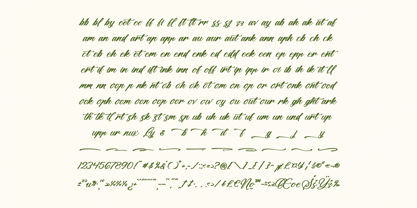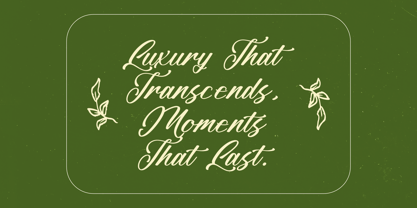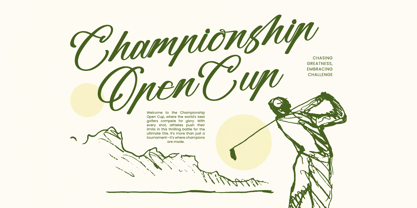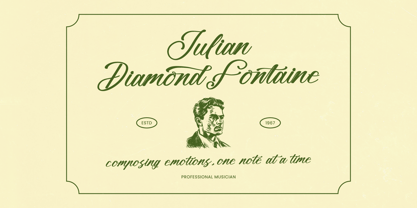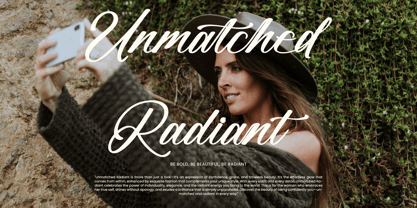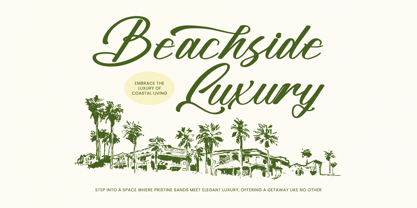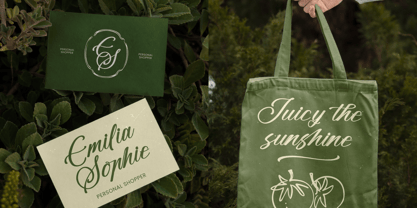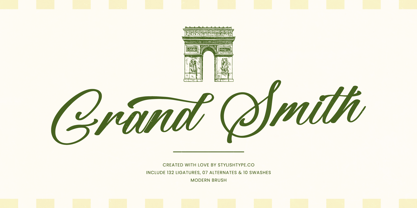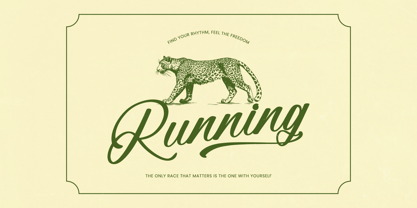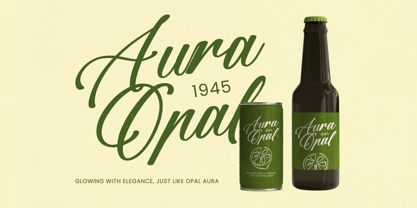
Grand Smith
von Stylishtype Studio
Die Schriftfamilie Grand Smith wurde von Heru Utama Putra entworfen und von Stylishtype Studio veröffentlicht. Grand Smith enthält 2 Stile und Familienpaketoptionen. Mehr über diese Familie
Grand Smith is an elegant modern brush script font inspired by classic Parisian charm and smooth handcrafted lettering, designed with flowing strokes, graceful curves, and refined swashes that bring a luxurious handwritten feel to any project. Its natural rhythm and bold script character make it ideal for branding, upscale packaging, wedding invitations, boutique logos, café menus, personal signatures, and editorial designs that demand a stylish and sophisticated handwritten expression. Featuring expressive ligatures and carefully crafted alternates, Grand Smith delivers a polished, authentic script aesthetic perfect for elevating visual identity with warmth, class, and artistic personality
Designer: Heru Utama Putra
Aktuelle Foundry: Stylishtype Studio